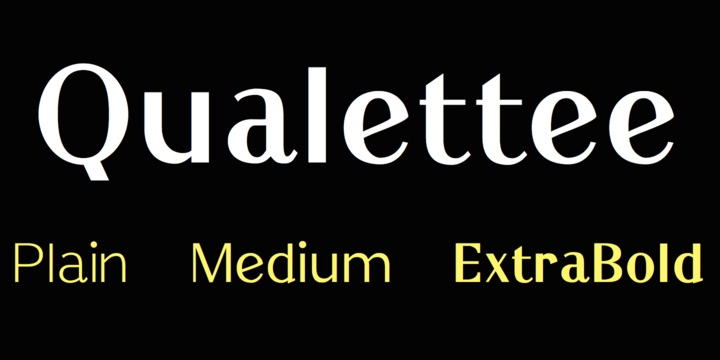
Qualettee Font
Qualettee Font is perfect for luxury fashion magazines, high-end cosmetic packaging, sophisticated wedding invitations, premium brand logos, boutique hotel signage, jewelry advertisements, art gallery catalogs, wine bottle labels, exclusive event invitations, and upscale restaurant branding. This refined typeface excels in applications where elegance, exclusivity, and timeless sophistication are paramount.
What makes Qualettee Font exciting is its exquisite balance of classic refinement and contemporary flair that creates an instantly recognizable premium aesthetic. The font features meticulously crafted letterforms with subtle serif details and elegant proportions that command respect while maintaining excellent readability. Its distinctive character shapes help establish immediate brand recognition and convey a sense of luxury that resonates with discerning audiences seeking quality and exclusivity.
The Qualettee Font family typically includes multiple weights ranging from Light to Bold, with corresponding italic variations that add versatility to design applications. Many versions feature extended character sets with special ligatures, stylistic alternates, and ornamental glyphs that enhance its decorative potential. Some collections may include small caps, old-style numerals, and swash characters that provide designers with comprehensive tools for creating sophisticated typographic hierarchies.
Whether you're developing luxury brand identities, designing editorial layouts for premium publications, or creating marketing materials for exclusive products, Qualettee Font Free Download delivers the sophisticated elegance that high-end brands demand. Its versatile nature makes it suitable for both large display applications and refined body text. The font's ability to convey prestige while maintaining approachability makes it particularly valuable for luxury brands seeking to attract affluent customers who appreciate quality, craftsmanship, and authentic premium experiences.